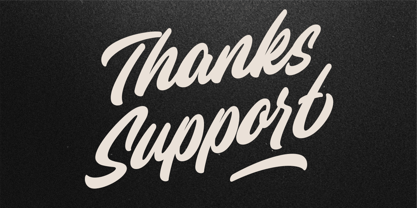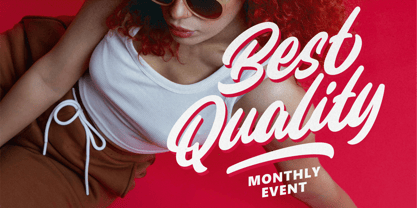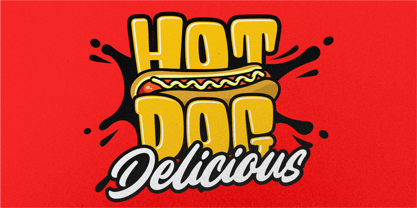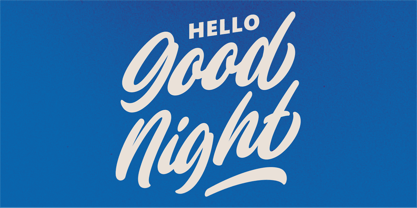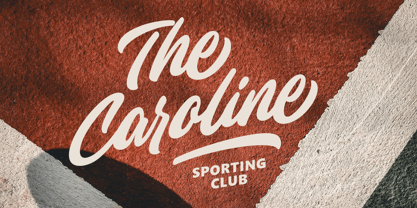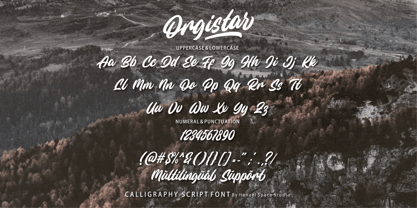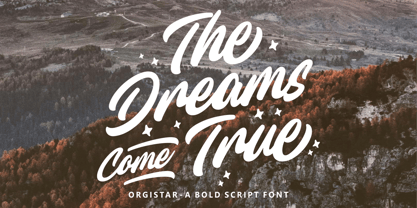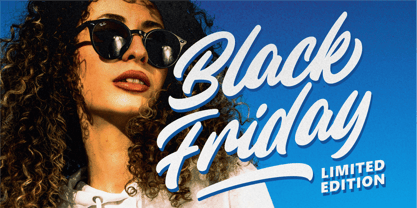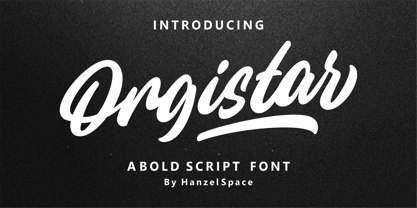
Orgistar
The Orgistar Font Family was designed by Hanief Farandi and published by Hanzel Space. Orgistar contains 1 styles. More about this family
Introducing, Orgistar – a standout bold script with a touch of natural looks. This type of font perfectly made to be applied especially in logo, headline, signage and the other various formal forms such as invitations, labels, logos, magazines, books, greeting / wedding cards, packaging, fashion, make up, stationery, novels, labels or any type of advertising purpose. Features: Uppercase & Lowercase Numerals & Punctuation Ligatures Multilanguage Supports Swash Cheers! Happy Creating! Hanzel Space Studio